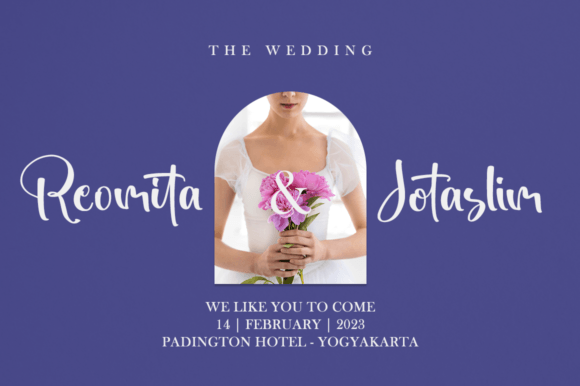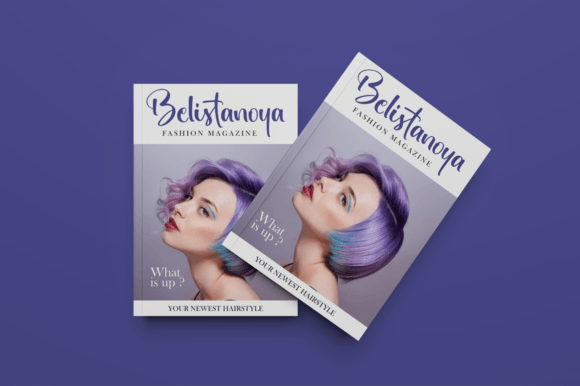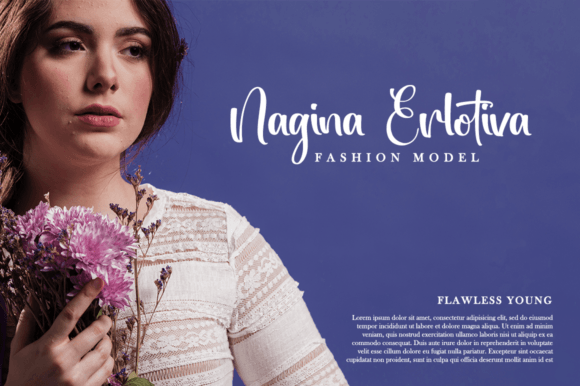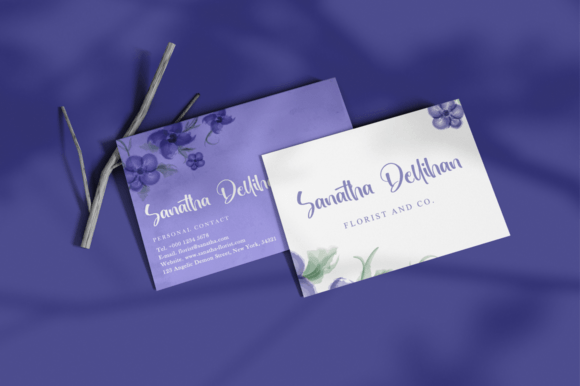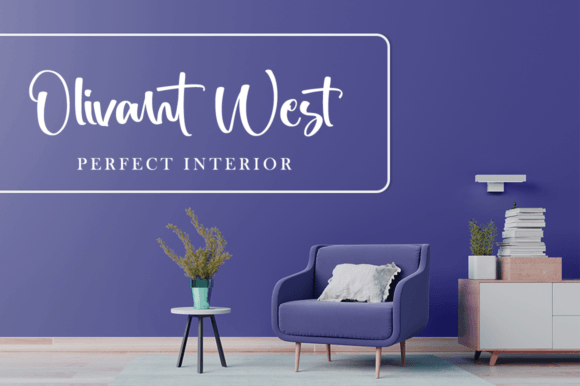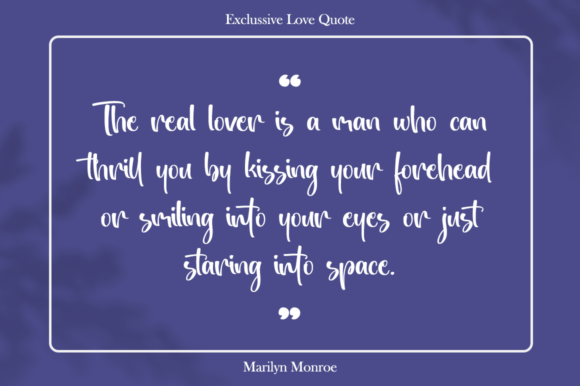
Introduction to Padingtone Font
Padingtone is a lovely and delicate script font that exudes elegance and class.
This font is perfect for those who need a beautiful and refreshing look to their designs This font is PUA encoded which means you can access all of the glyphs and swashes with ease.
Key Features of Padingtone Font